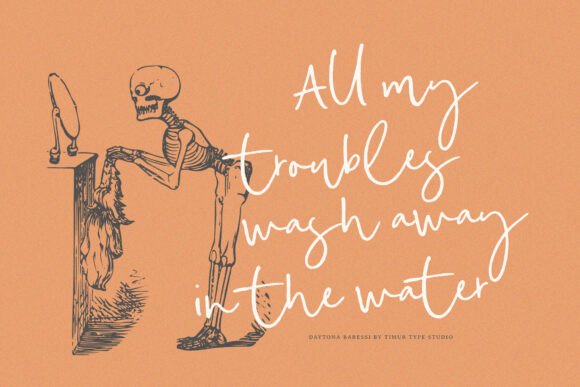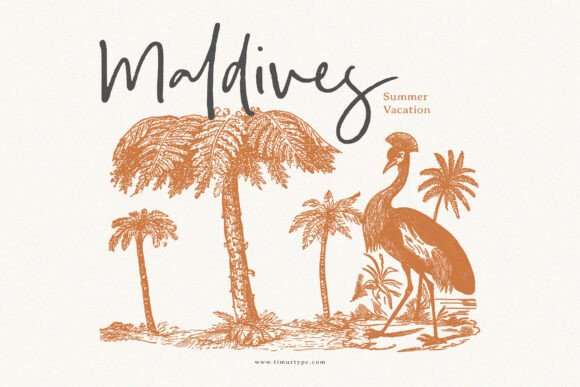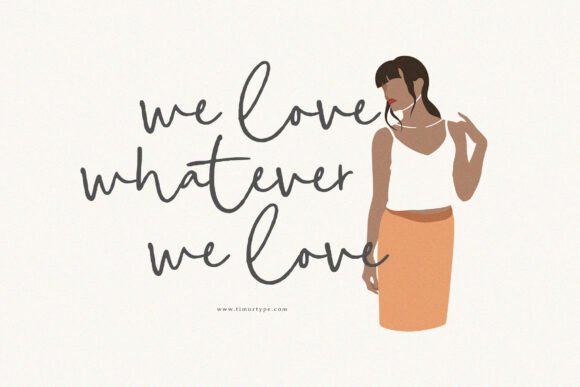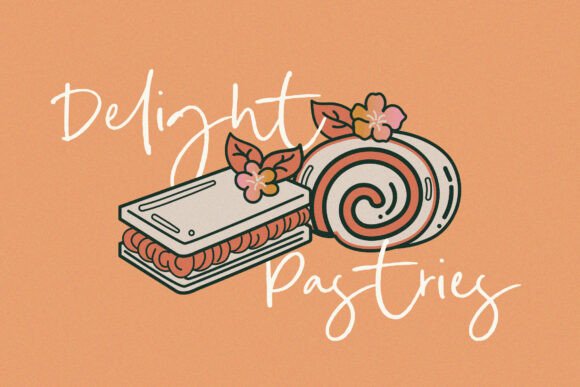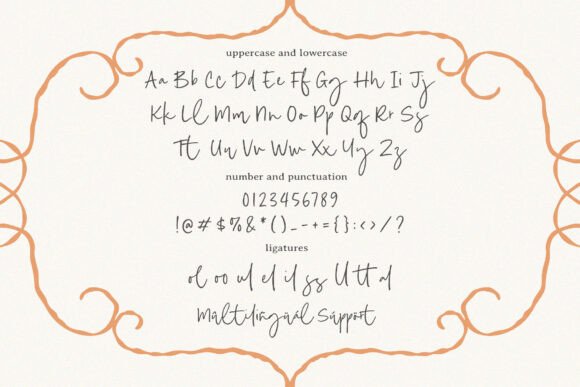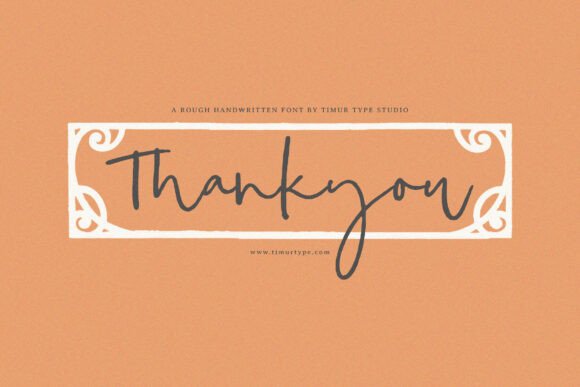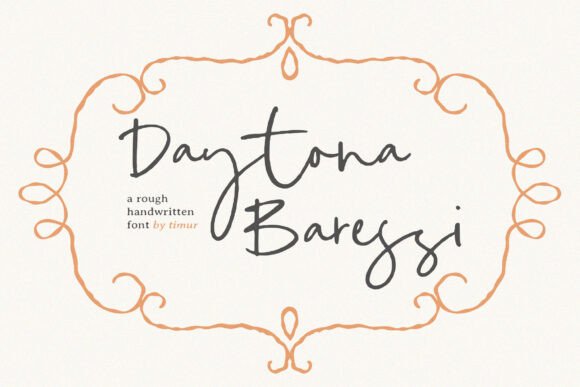
Discover the Charm of Daytona Baressi Font: Elevate Your Designs with a Touch of Casual Elegance
In the world of typography, few fonts manage to strike a balance between elegance and casualness. Daytona Baressi, a unique rough handwritten font, is one such gem that captures the essence of casual elegance. Its bold strokes and organic imperfections evoke a sense of authenticity and warmth, making it perfect for projects that require a touch of personality. Whether you’re a designer, craftsperson, or simply someone who appreciates beautiful typography, Daytona Baressi is sure to leave a lasting impression.
The Essence of Daytona Baressi: A Handwritten Font with Character
Daytona Baressi is more than just a font; it’s a statement piece. Its rough, handwritten texture gives it a distinct, organic feel that’s reminiscent of handcrafted art. The bold strokes and subtle imperfections in each letter make it feel like it was written with a brush or a marker, adding a touch of warmth and personality to any design. This font is perfect for those who want to add a human touch to their projects, making it ideal for branding, invitations, and creative displays.
Why Choose Daytona Baressi for Your Designs?
There are many reasons why Daytona Baressi stands out from the crowd. Here are just a few:
- Unique and Memorable: The rough, handwritten texture of Daytona Baressi makes it instantly recognizable. Its uniqueness ensures that your designs will stand out and be remembered.
- Versatile: Whether you’re working on a branding project, creating invitations, or designing creative displays, Daytona Baressi adapts seamlessly to different contexts.
- Evokes Emotion: The organic imperfections and bold strokes of this font evoke a sense of warmth and authenticity, making it perfect for projects that require a personal touch.
- Easy to Read: Despite its rough texture, Daytona Baressi remains highly legible, making it suitable for both headlines and body text.
Perfect Use Cases for Daytona Baressi
Daytona Baressi’s versatility makes it suitable for a wide range of projects. Here are some perfect use cases:
- Branding: Use Daytona Baressi to create a unique and memorable brand identity. Its bold, handcrafted feel makes it perfect for logos, packaging, and marketing materials.
- Invitations: Add a touch of elegance and personality to your invitations, whether it’s for a wedding, birthday party, or corporate event.
- Creative Displays: Use Daytona Baressi in creative displays, such as posters, flyers, and social media graphics, to add a stylish, handcrafted feel.
- Packaging: Elevate your product packaging with a font that exudes warmth and authenticity.
Tips for Using Daytona Baressi Effectively
To get the most out of Daytona Baressi, here are some tips:
- Pair with Simple Fonts: Pair Daytona Baressi with simpler fonts for contrast and to create visual hierarchy.
- Experiment with Colors: Don’t be afraid to experiment with different colors to find the perfect match for your design.
- Use it for Headlines: Daytona Baressi is perfect for headlines and titles, but you can also use it for body text for a more cohesive look.
Daytona Baressi is more than just a font; it’s a design statement. Its unique rough handwritten texture, bold strokes, and organic imperfections make it perfect for projects that require a touch of casual elegance. Whether you’re a designer, craftsperson, or simply someone who appreciates beautiful typography, Daytona Baressi is sure to elevate your designs and leave a lasting impression.